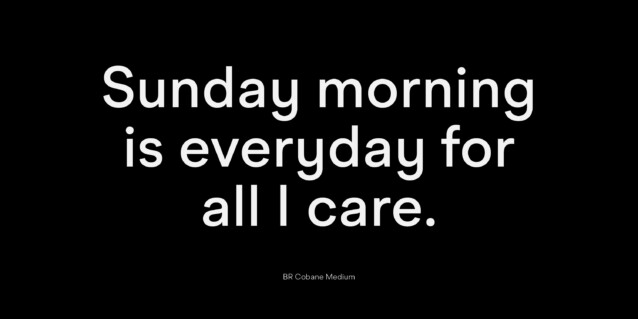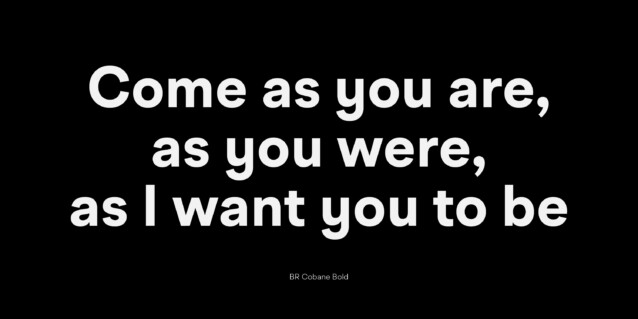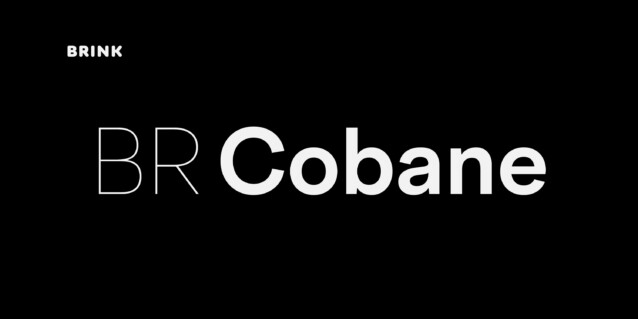
BR Cobane Font Family
BR Cobane Font is a new versatile modern geometric font family of 16 styles. BR Cobane is a fine balance of functionality and contemporary characteristics. Precisely drawn with a modern aesthetic in mind, Cobane has familiar qualities associated with the classic grotesques, but combines them with a stronger modern geometric flavour.
BR Cobane is available in 16 finely crafted styles, with eight weights ranging from Thin to Black. The fonts also provide advanced typographic support with OpenType features such as case sensitive forms, icons, stylistic alternates, slashed zeros, and multiple figure sets. Also containing advanced language support as standard.